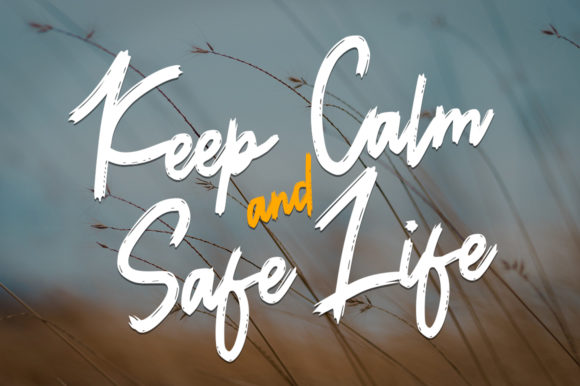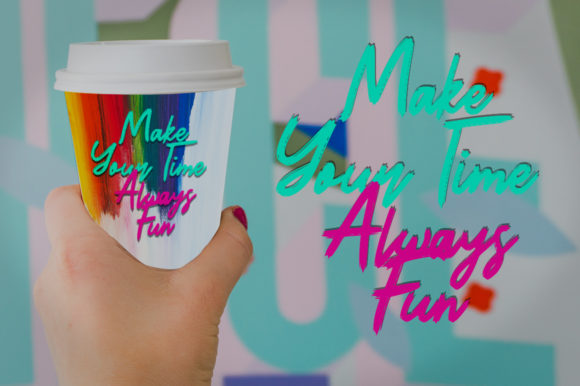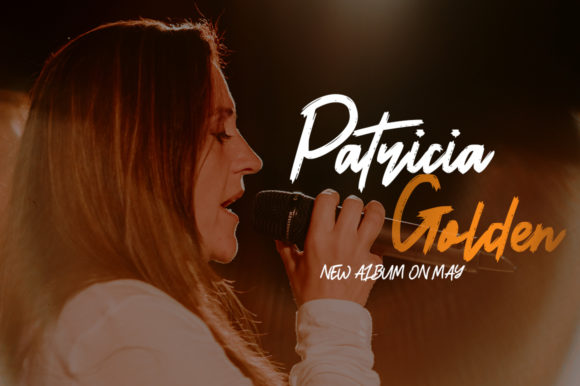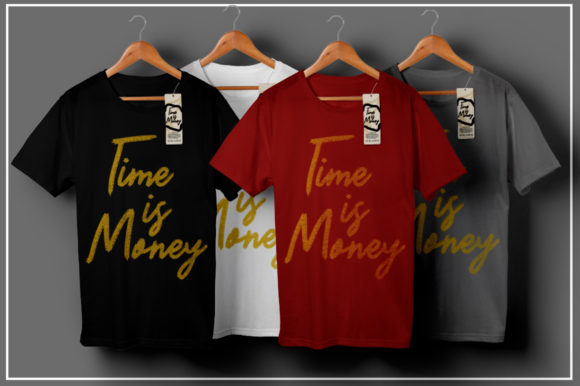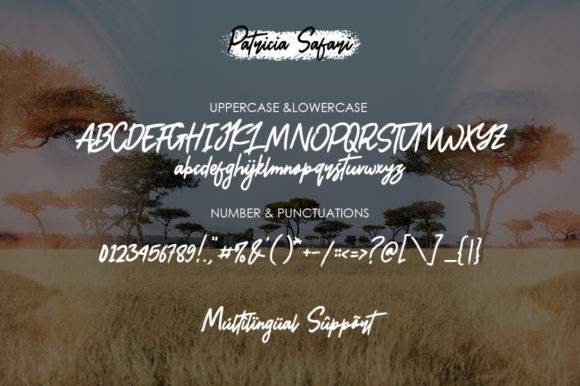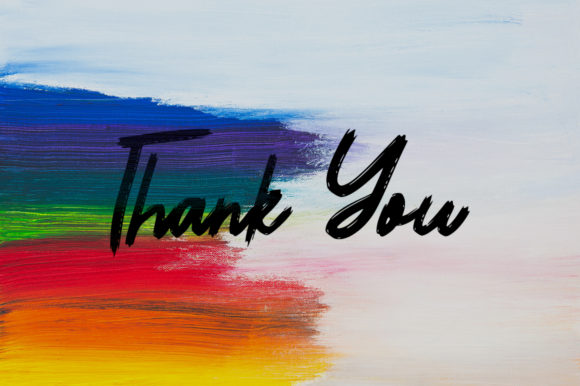
Introduction to Patricia Safari Font
Patricia Safari is a casual, fun handwritten font, created by using a brush pen.
This font is the perfect fit for all of your logos, branding, social media, and crafty DIY projects .